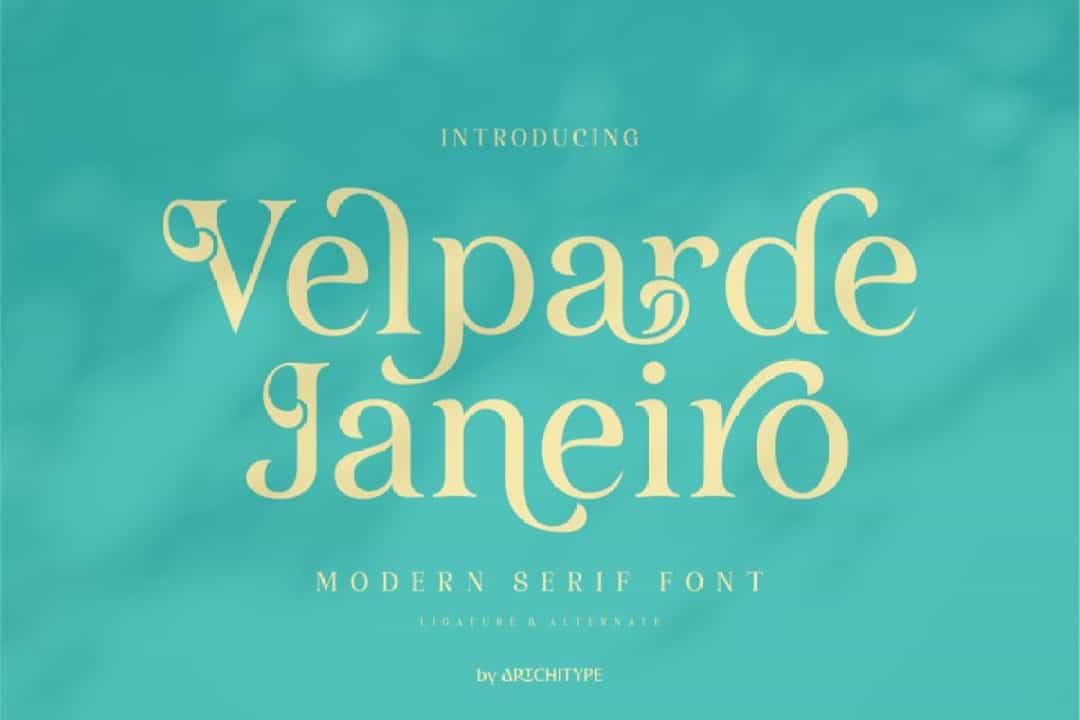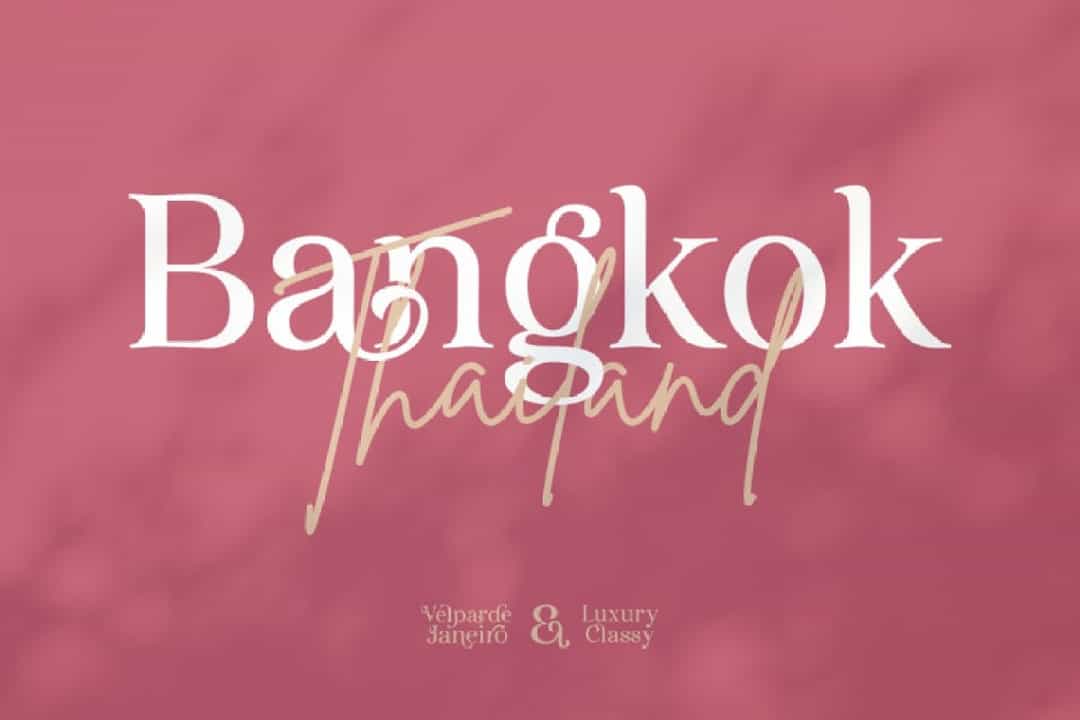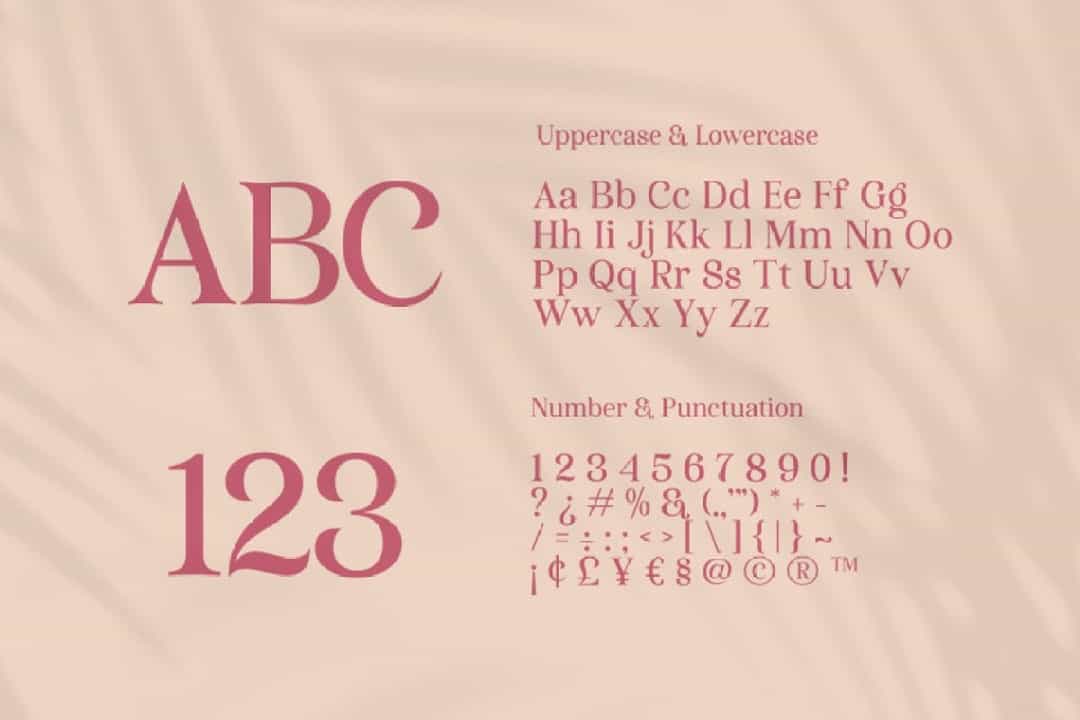
Velparde Janeirois classy display serif font is packed with over 270 characters – uppercase, lowercase, multilingual alternative characters and other commonly-used ones such as punctuation marks. Velparde Dejainero can be used for logos for social media postings or product packaging designs as well as any number of other applications.